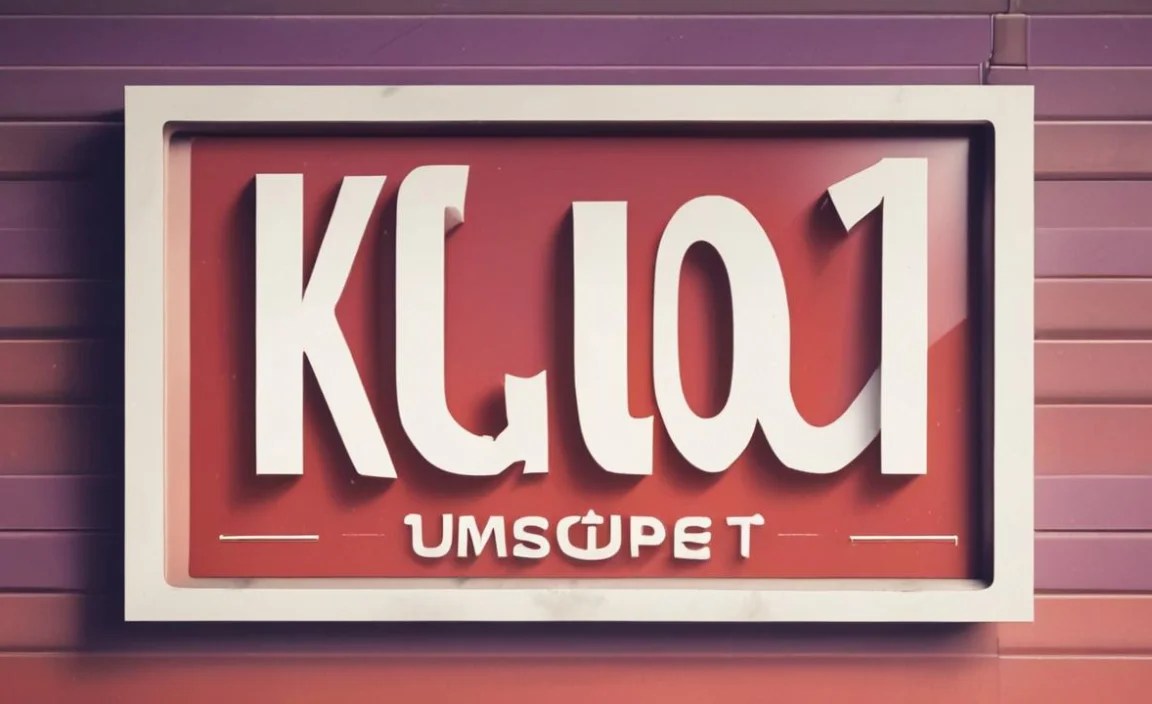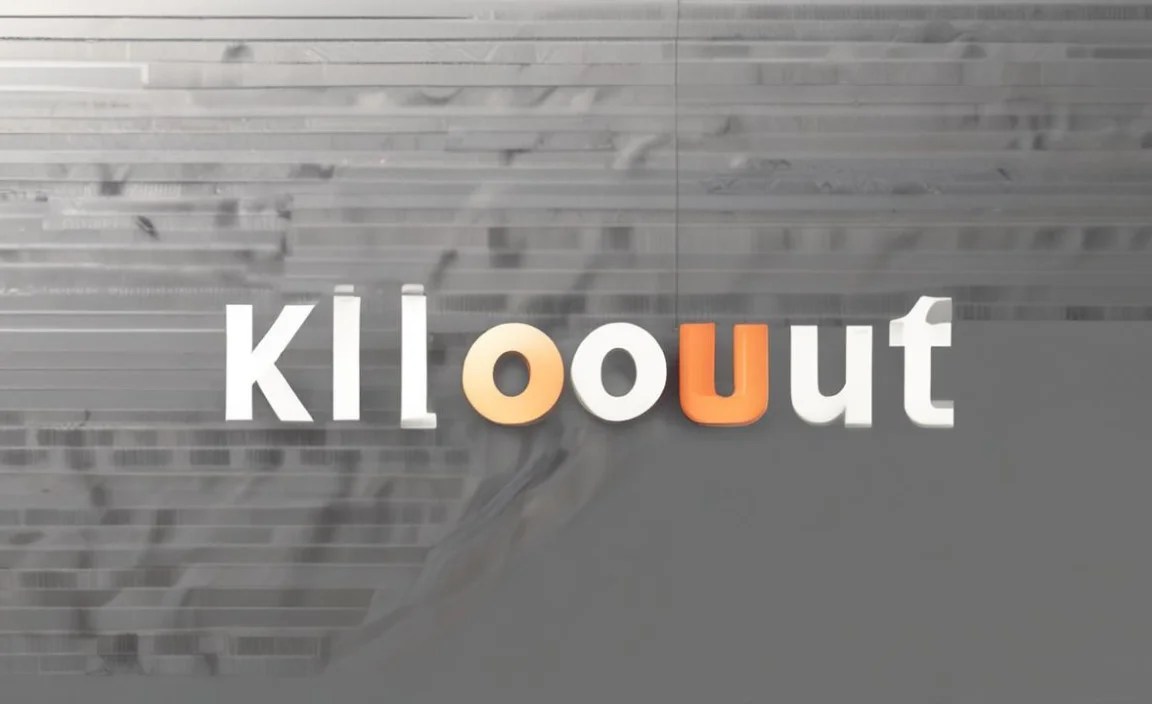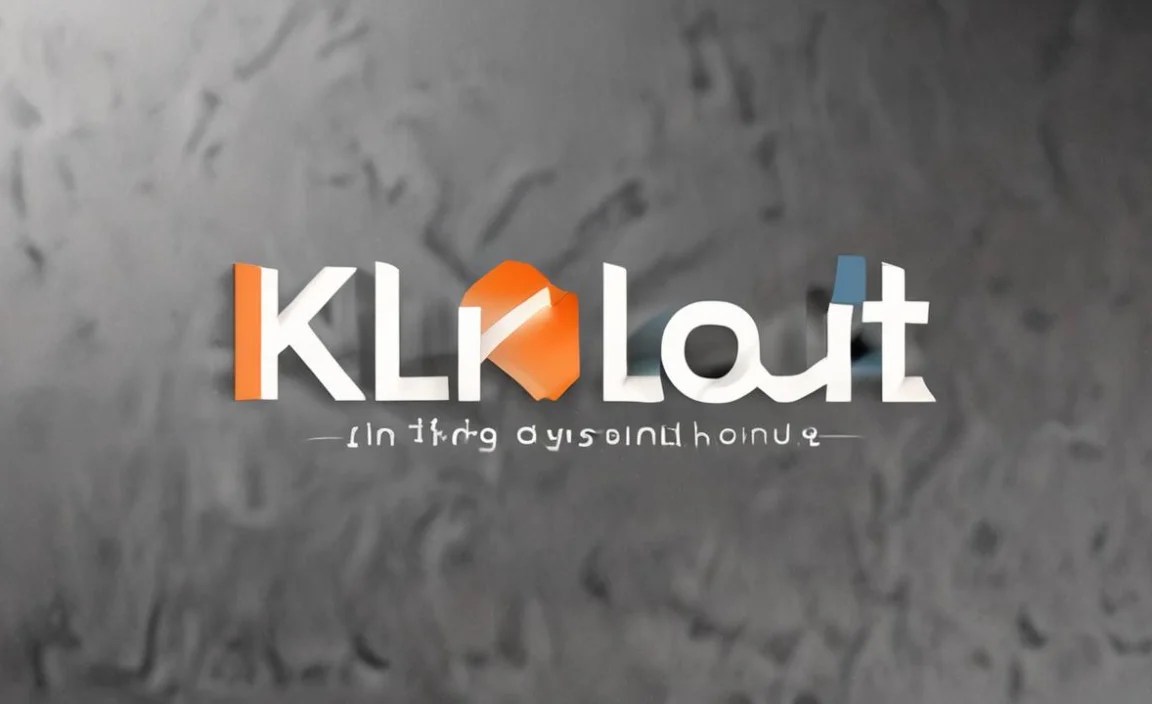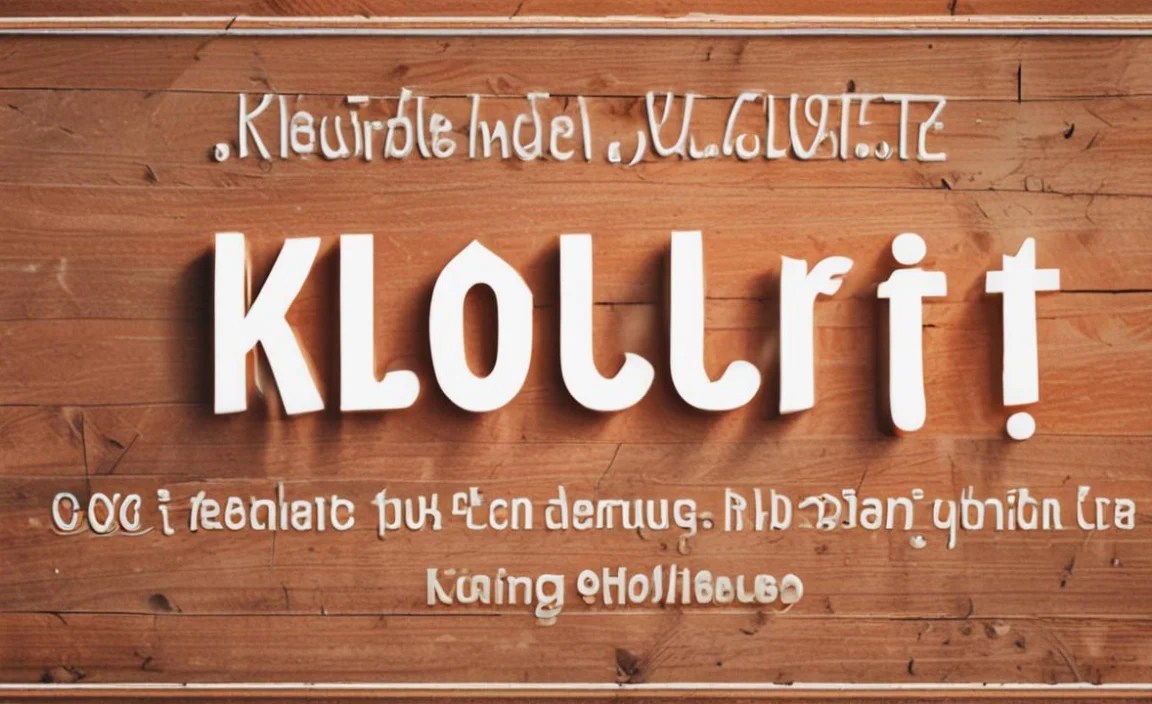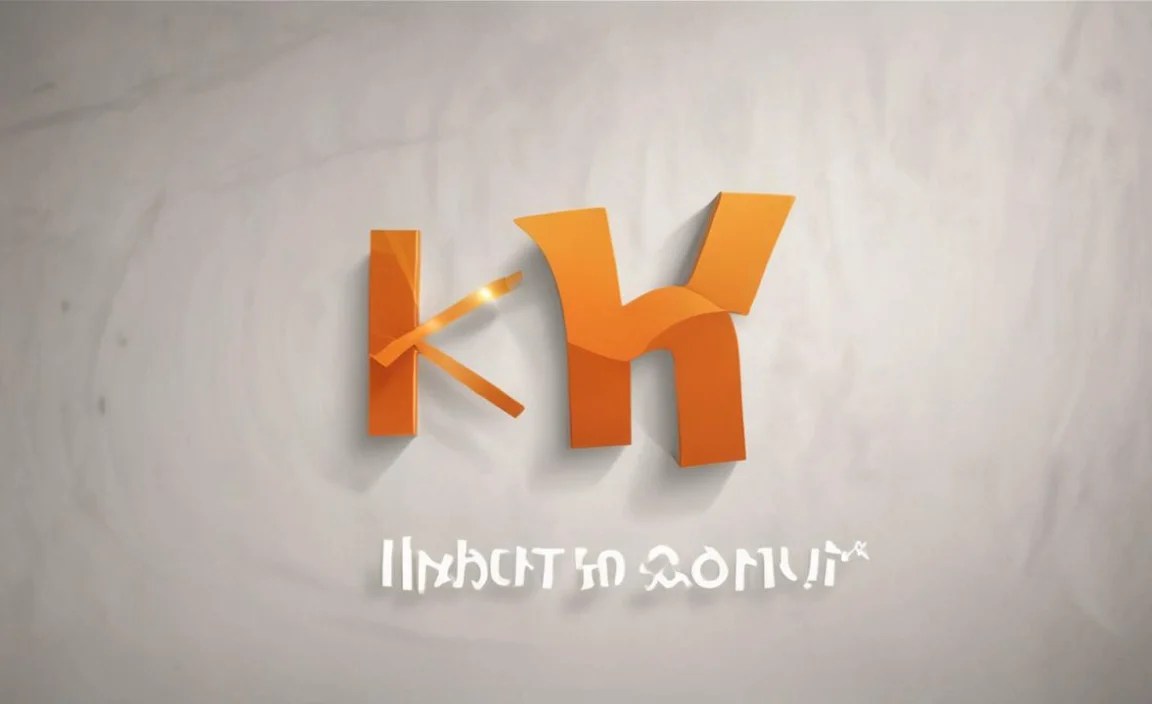
The Klout Font is a modern and stylish sans-serif typeface designed for versatility and clarity in digital communication. Originally inspired by social media aesthetics, this font is ideal for applications that require strong visual impact and legibility, making it suitable for branding, websites, and apps.
Klout Font Family And Available Styles
The Klout Font Family offers several variations that can be used in different design contexts. The main style includes:
- Klout Regular: This clean and bold version is great for headlines, titles, and impactful statements across digital and print platforms.
These variations make the font flexible, giving you the ability to create diverse design styles that align with your project goals.
Where Klout Font Is In Use
- Web Design
- Branding and Logos
- Print Media
- Digital Design
- Typography Projects
Klout Font In Industry Applications
The Klout Font excels in a variety of industries, from technology to marketing, due to its bold and clean design. It is a perfect fit for:
- Tech Startups: It provides a modern, sleek look for logos, websites, and app designs.
- Advertising and Marketing: The font is effective for creating memorable advertisements, branding campaigns, and digital content.
- E-commerce: Use Klout Font for online stores, product pages, and marketing materials that need to grab attention and communicate professionalism.
- Social Media Platforms: Perfect for designing impactful posts and banners on social media sites.
Best Font Pairing Example
The Klout Font pairs well with:
- Merriweather Serif Font
- Roboto
- Poppins
The Klout Font is a highly adaptable sans-serif typeface that captures the essence of social media dynamics. Its clean design is tailored for various applications, from enhancing user experience on a website to creating eye-catching content for marketing.
With its emphasis on clarity and modern aesthetics, the Klout Font is an excellent choice for designers looking to make an impactful statement in branding and digital communications.
Yes, Klout Font supports a wide range of languages, particularly those using Latin characters. It includes characters with accents for languages such as Spanish, French, German, and others, making it versatile for global applications. This feature allows you to use the font in international projects or markets, ensuring your designs are accessible to a broad audience.
5.What Fonts Are Similar To Klout Font?
If you’re looking for fonts that share a similar aesthetic to Klout Font, you can explore the following options:
- Montserrat: This is another modern sans-serif typeface with clean lines, offering a professional and contemporary look.
- Lato: A versatile and elegant sans-serif font, ideal for web and branding projects, that pairs well with Klout Font for added flexibility. Both fonts are popular for their modern design and legibility, making them interchangeable for a variety of design purposes.
7.Is Klout Font Suitable For Print Projects?
Absolutely! Klout Font is great for both digital and print designs. It’s highly versatile and works well for flyers, posters, business cards, brochures, and more. Its bold style ensures that it grabs attention and maintains readability in large formats, making it ideal for high-impact printed materials